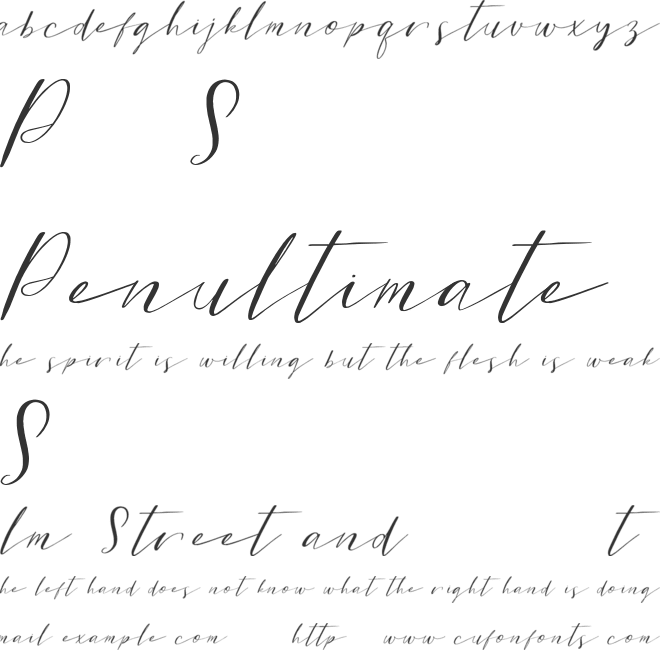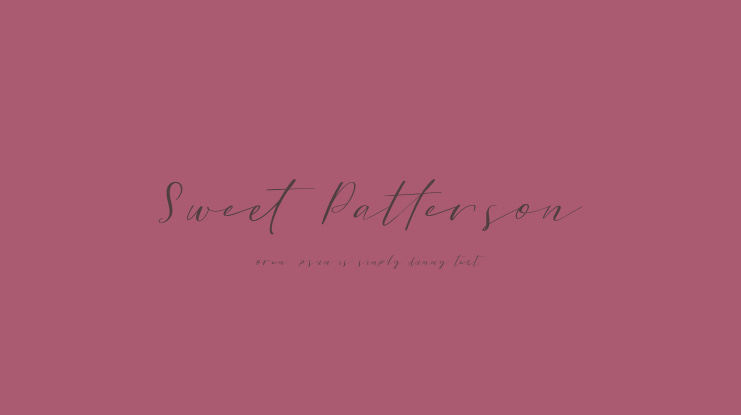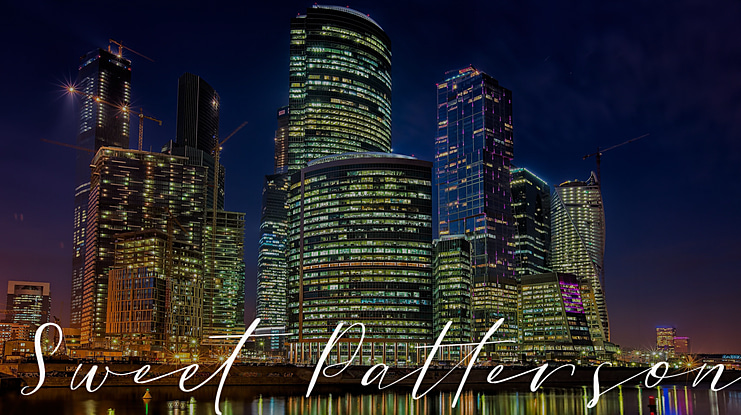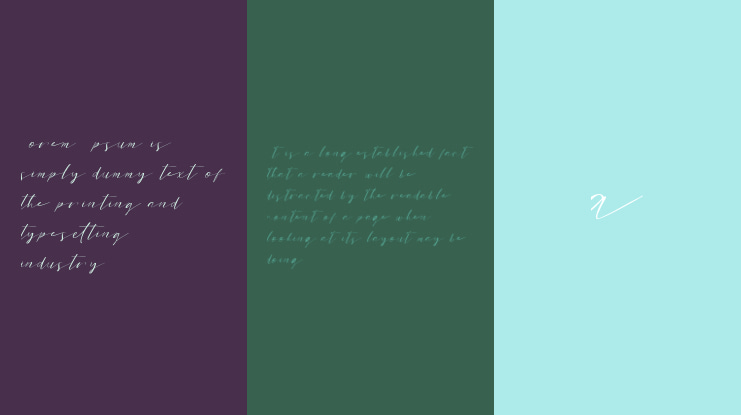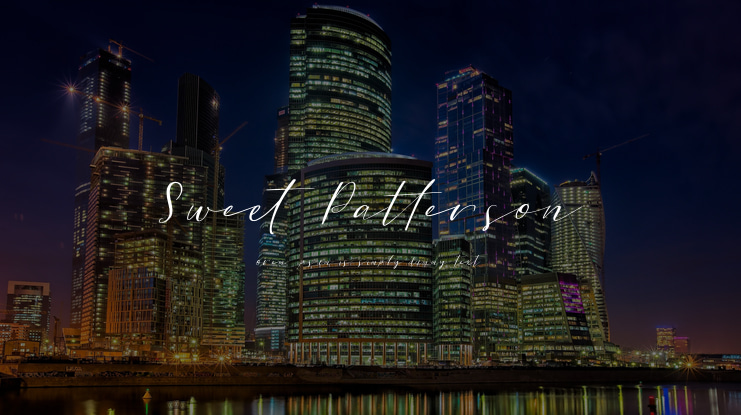
Sweet Patterson DEMO Font
Sweet Patterson, a beautiful and lovely modern calligraphy script font with perfectly imperfect written by the hand. Perfectly fit for branding, logo, wedding things, greeting cards, fashion, anytime you need to pour some love